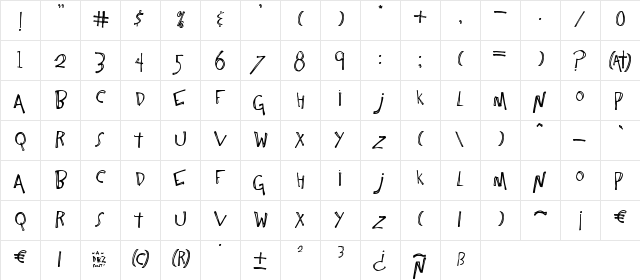
One Constant Regular
| Foundry | [ Divide By Zero ] Fonts |
| Designer | Tom Murphy 7 |
Design Context for One Constant Typeface
One Constant is a composed and adaptable typeface that performs quietly and consistently across a wide range of design contexts.